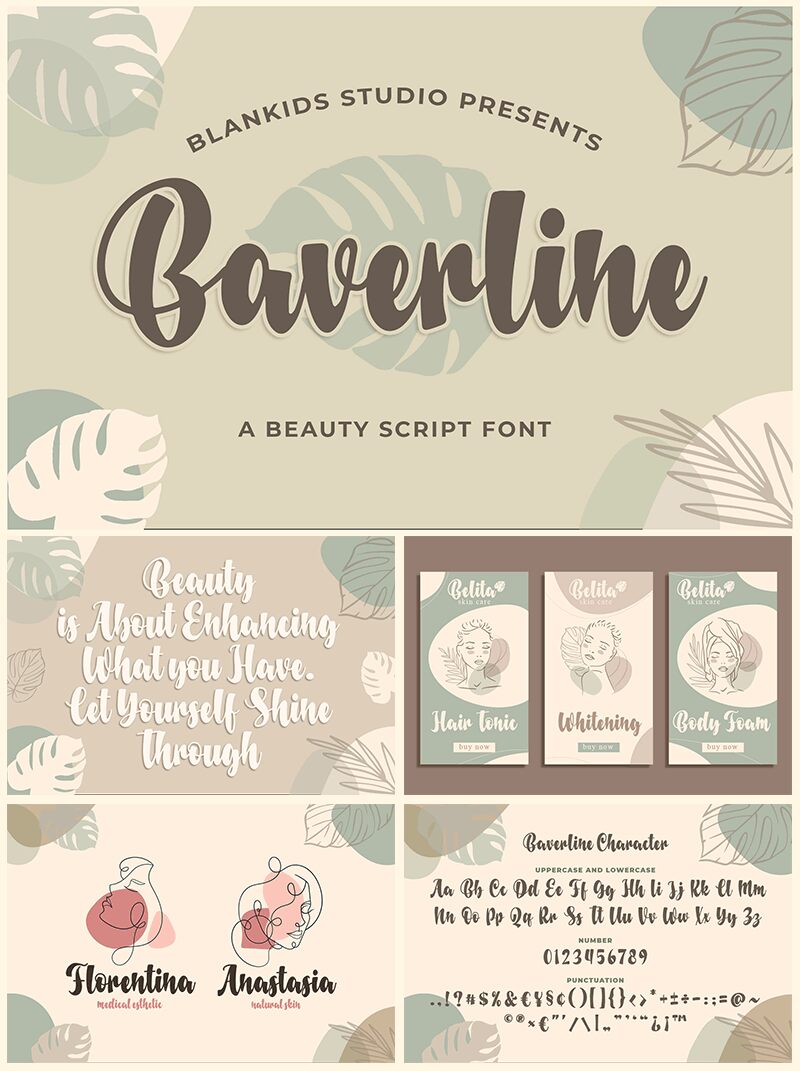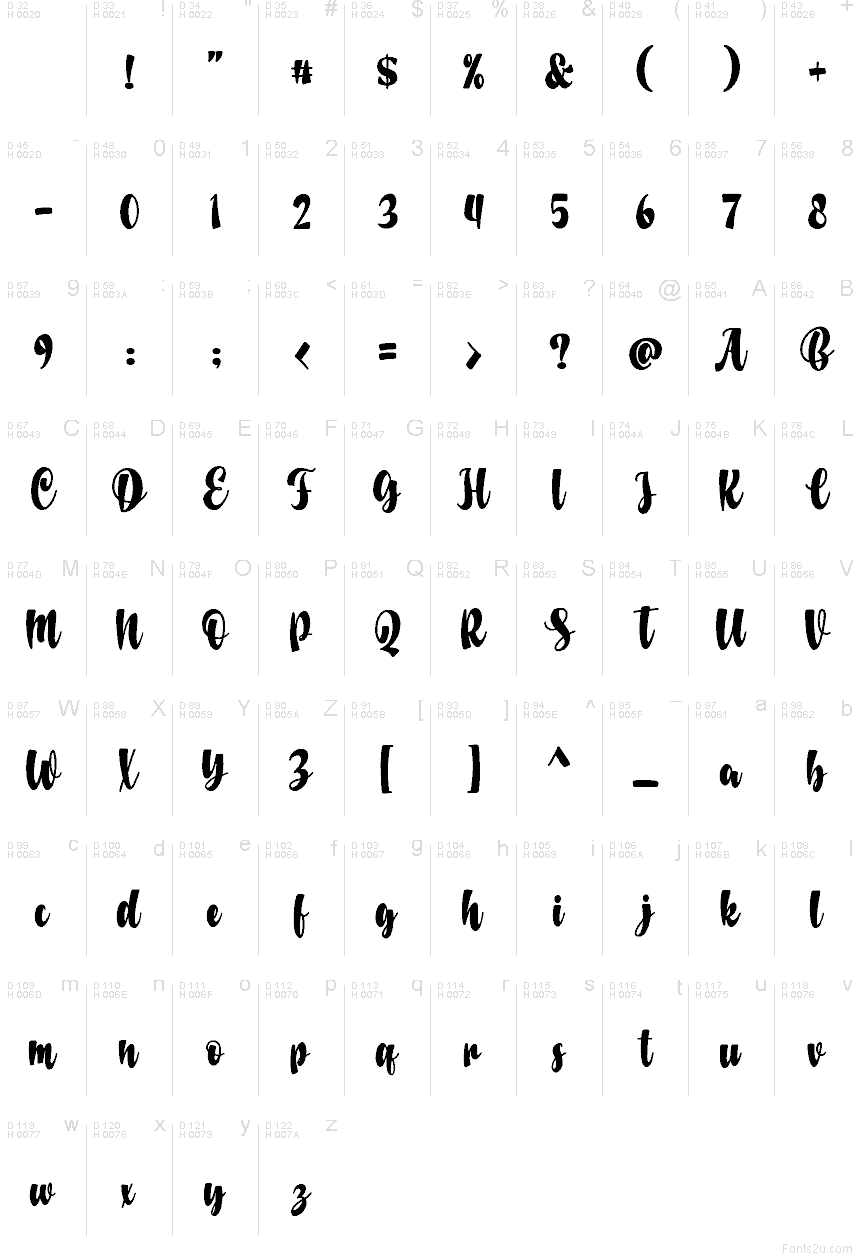
Baverline font by Blankids is a free brush script typeface with thick, inky strokes and a smooth, easy flow that feels hand-painted in one confident motion. The letters connect in a lively rhythm, with rounded curves and slightly bouncy movement that gives every word a warm, crafted presence. It’s bold enough to hold its own on busy backgrounds, yet still soft and friendly thanks to its rounded forms.
Using Baverline, your headlines instantly feel like custom lettering rather than stock type. This free font shines on product packaging, logo wordmarks, social media graphics, wedding signage, quote posters, and café menus. Set it large for maximum impact, then pair it with a clean sans serif in smaller text to keep everything readable while letting Baverline carry the personality.
Baverline by Blankids Studio